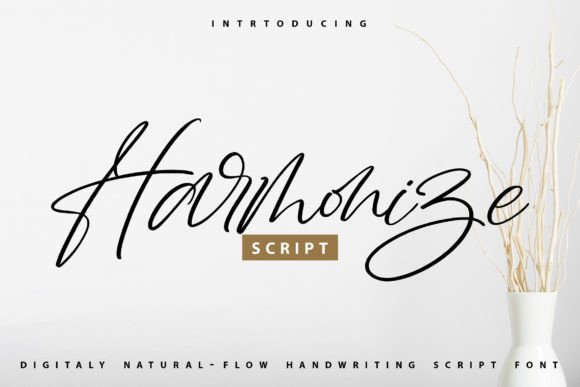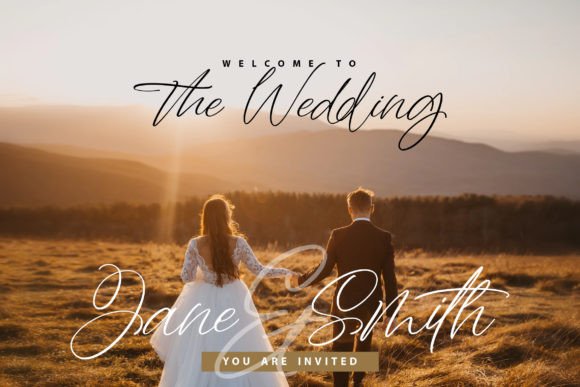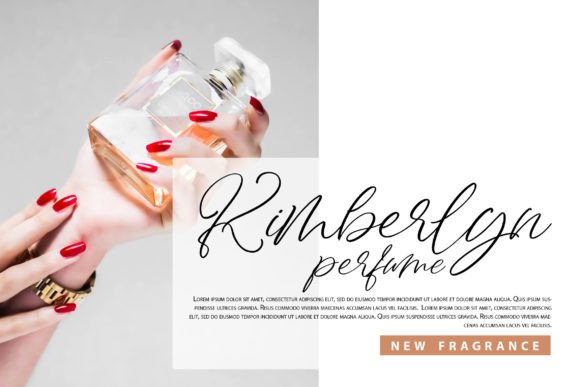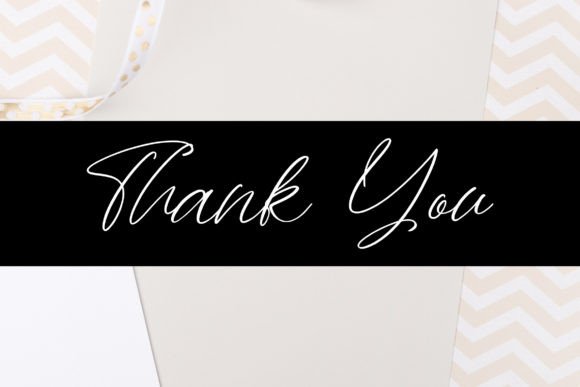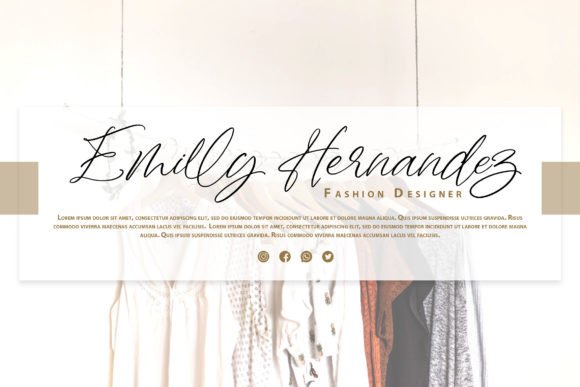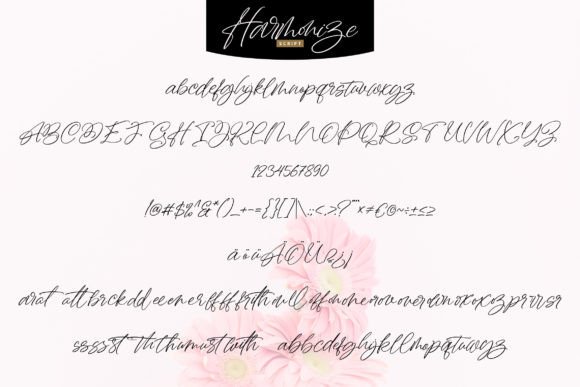
Harmonize Font
About Harmonize Font
“Harmonize” is a visually captivating and elegantly light handwritten font that possesses a distinct and impactful presence. This font is a luxurious addition to your creative toolkit, guaranteed to infuse a touch of opulence into any design project you undertake.
What sets “Harmonize” apart is its PUA (Private Use Area) encoding, which simplifies the process of accessing a wide range of remarkable glyphs and ligatures. This encoding feature ensures that your creative possibilities are virtually limitless, granting easy access to intricate design elements that can elevate your projects to new heights of sophistication.
Whether you’re working on branding, invitations, posters, or any other creative endeavor, “Harmonize” brings a unique and luxurious feel to your work. Its light handwritten style exudes a sense of grace and exclusivity, making your designs stand out with a touch of class and brilliance.
As you embrace “Harmonize” in your creative process, you’ll quickly discover its remarkable ability to enhance your work, infusing it with beauty and opulence. This font becomes a trusted ally on your design journey, enabling you to craft designs that captivate your audience and create a lasting impact.
In summary, “Harmonize” is a stunning and light handwritten font that leaves a remarkable impression. With its PUA encoding, it provides you with easy access to a wealth of design elements, simplifying the process of creating visually striking and distinctive projects. Allow “Harmonize” to be your creative companion and witness how it enhances your designs, ensuring they radiate with luxury and resonate with your audience.